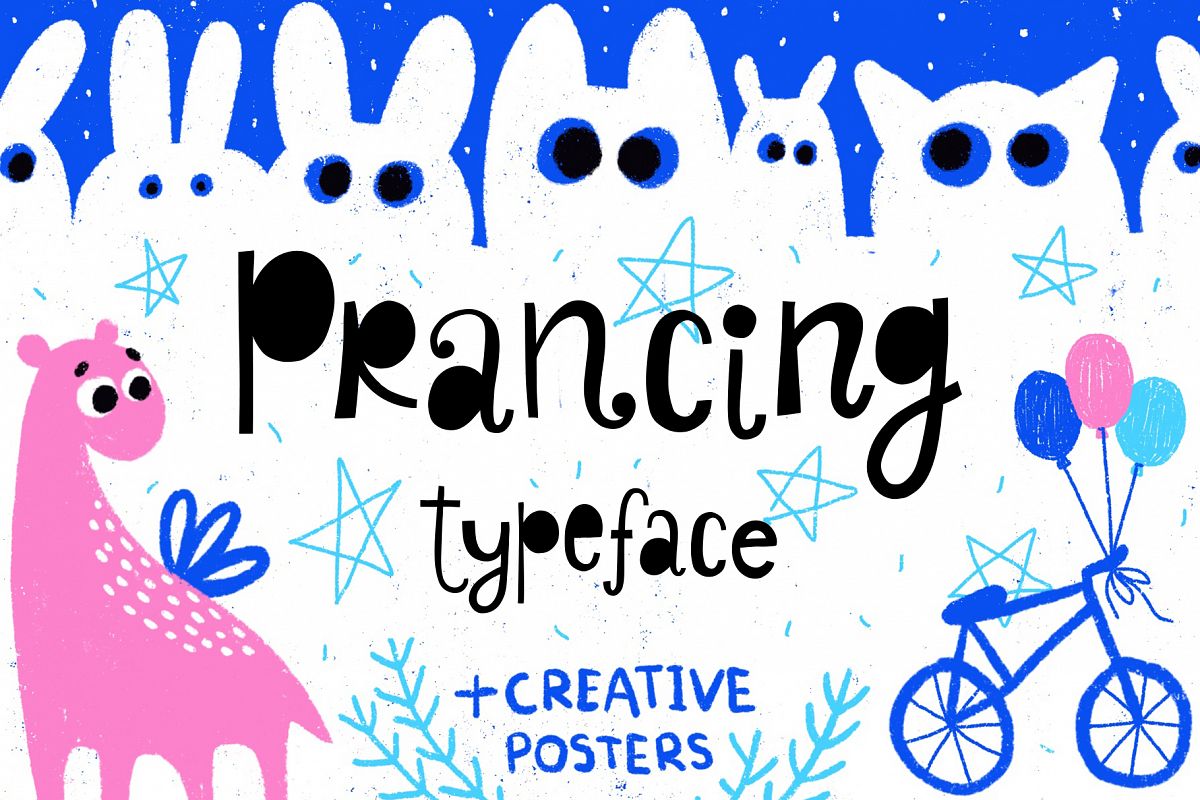
Prancing typeface with posters
? Prancing Typeface - funny font for your projects! ?
This font is drawn manually. He is in a cheerful style, perfect for modern projects. This funny font is perfect for cards, prints, logos, wedding invitations, arrange illustration and decoration.
• It has upper and lower case letters, numbers, special characters, accents, alternates, ligatures.